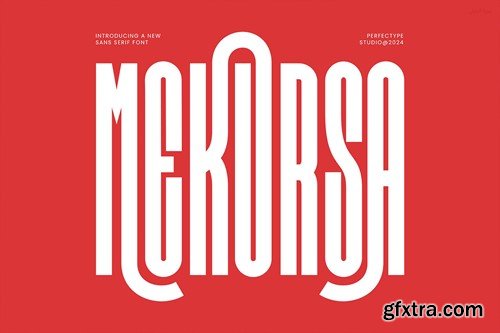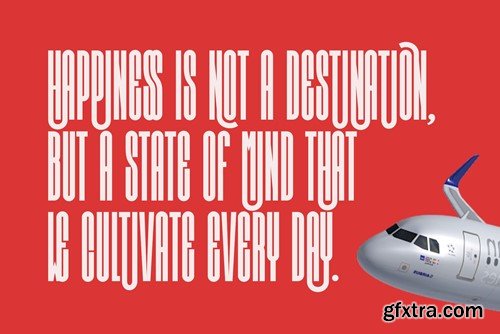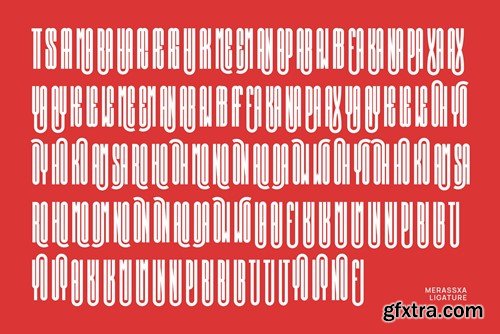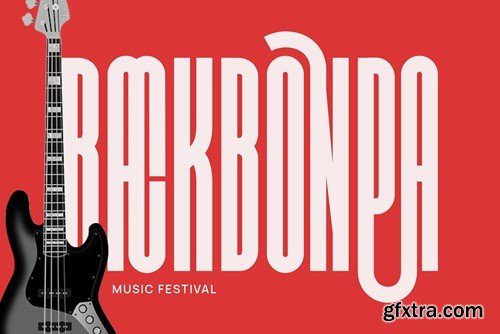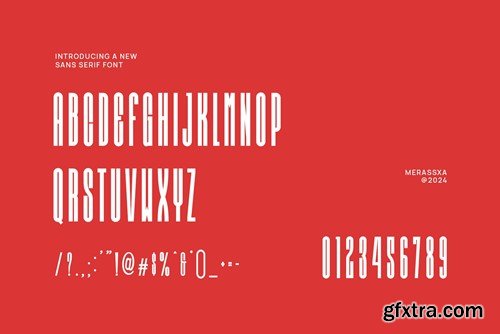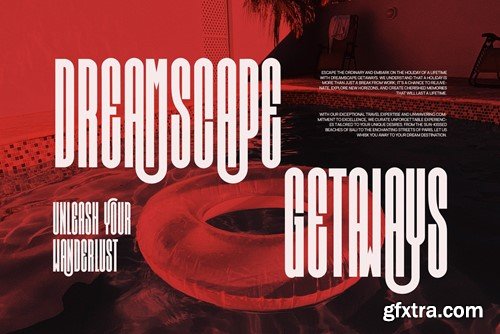
迈克萨现代未来主义无衬线字体QAL6RJE
This typeface encapsulates a rhythm that is symmetrical and balanced due to a unique mix of different sources of inspiration. Proportions are precisely adjusted with subtle contours and subtle contrasts. These shapes give the font an attractive look without compromising on elegance and minimalism, ensuring that any glyph will work well in any graphic design purpose such as brochures, videos, advertising branding, logos, magazines, layout designs, posters, post templates, games and others What's Included: Recommended using Adobe Illustrator or Adobe Photoshop. Wish you enjoy our font and if you have any questions, don't hesitate to drop a message & I'm happy to help :)